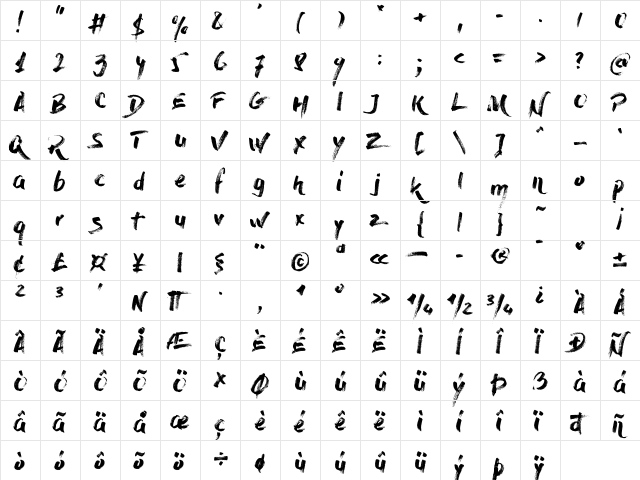
Dry Brush Regular
| Foundry | Levi Szekeres |
| Designer | Levi Szekeres |
Design Context for Dry Brush Typeface
Dry Brush flows with the natural rhythm of handwritten lettering, making it ideal for designs that call for warmth and personal expression.